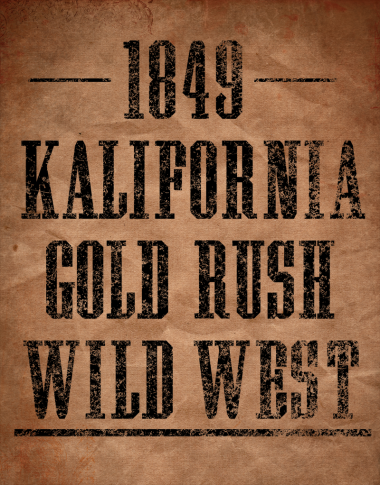
Exploration. Inspire from Grecian woodtype. Tall and narrow.
Great font and great sample! Good work. 10/10
Sample shows exactly how one should use this. I like solutions here (e.g. 7).
Congratulations! FontStruct Staff have deemed your FontStruction worthy of special mention. “Grecian 1896” is now a Top Pick.
thank you very much for the pink honnor. I know I was'nt in the new bricks vibe... I was revisiting a woodtype classic.
Hey, I've missed this pretty! I like a lot the Grecian woodtype style, and your work with it is simply gorgeous! One real delicatessen. Congrats for the well deserved TP, mon ami!
Excellent font, great sample. 10/10
Great font, great sample!
Beautiful work, Upixel! I especially like how you resolved the uppercase M,N, V, and W... Your glyphs are very faithful to the condensed grecian style (unlike what I did with Prometheus, which was to adapt the shapes of the lowercase m,n, v, and w). Kudos, sir!